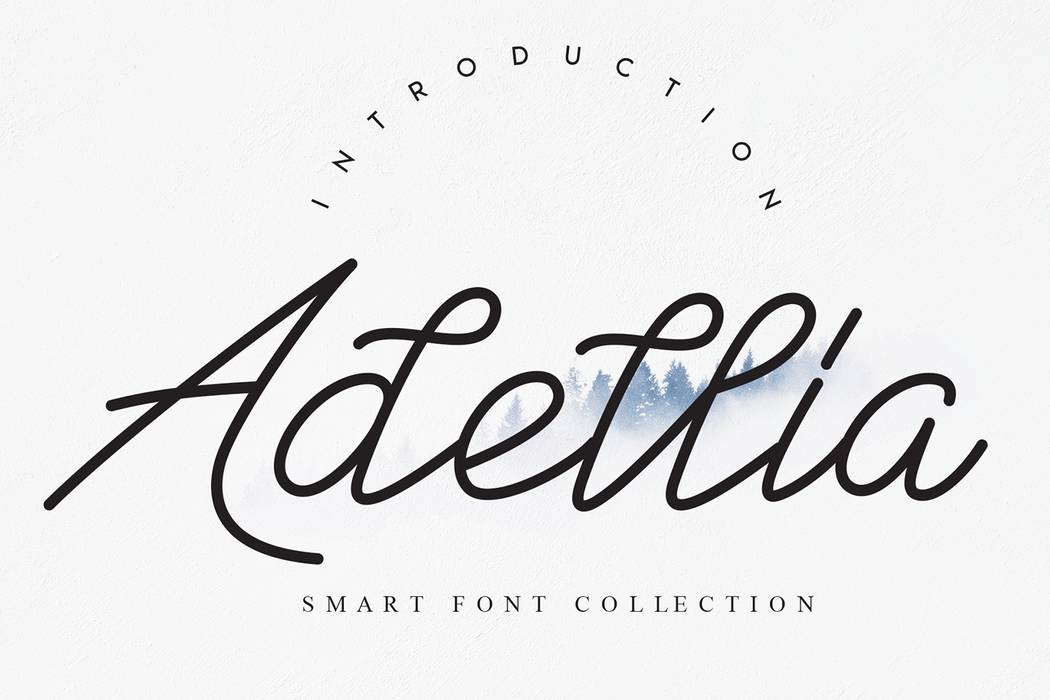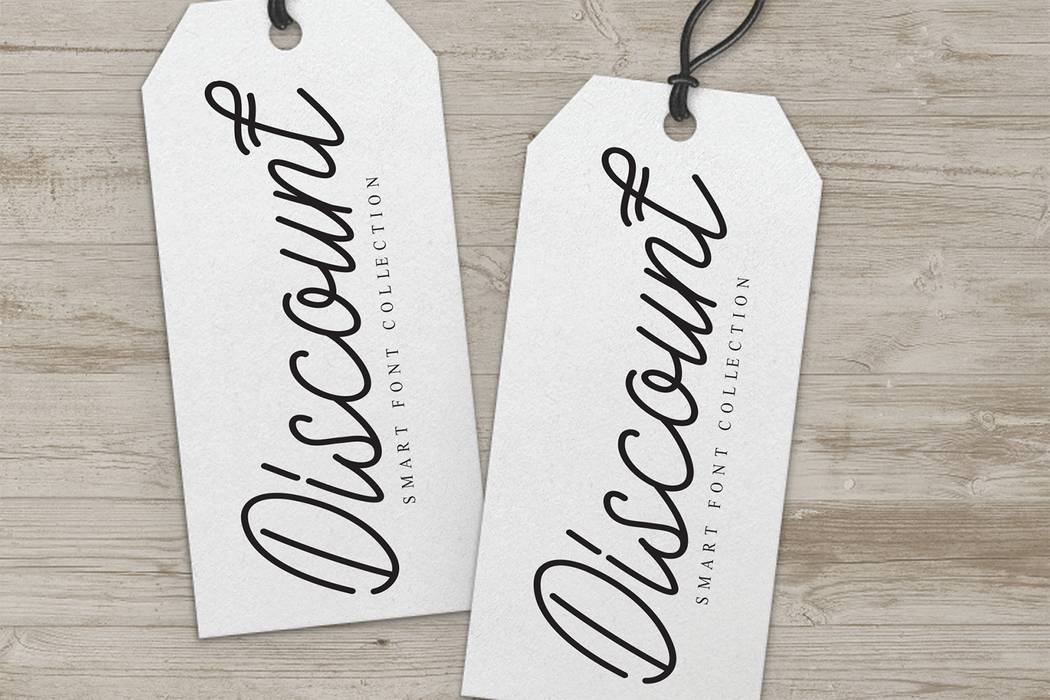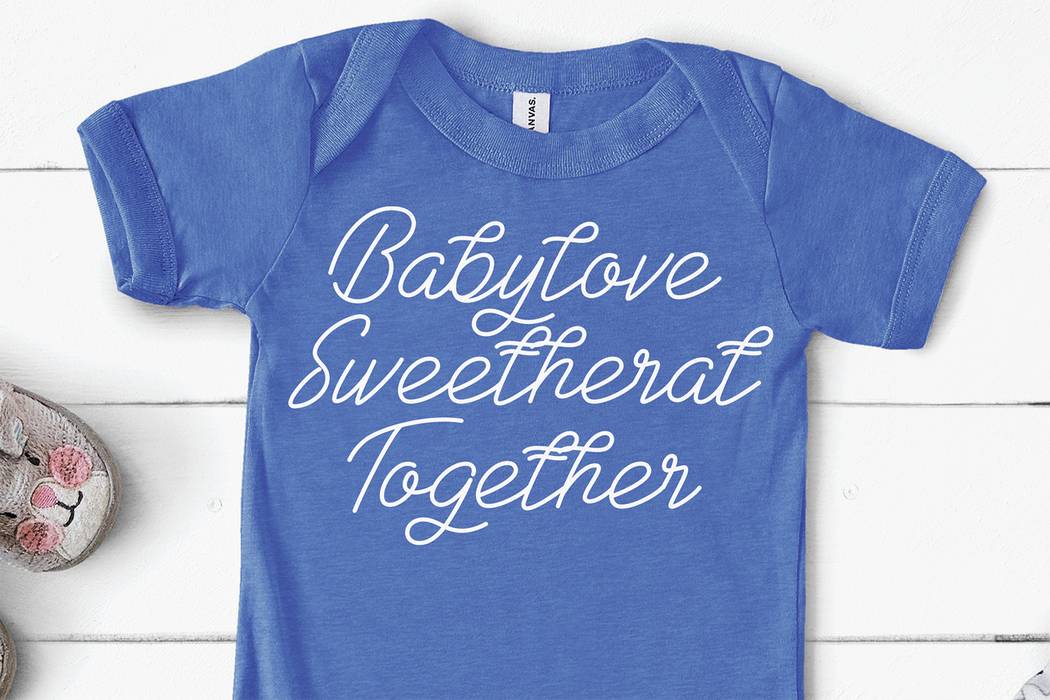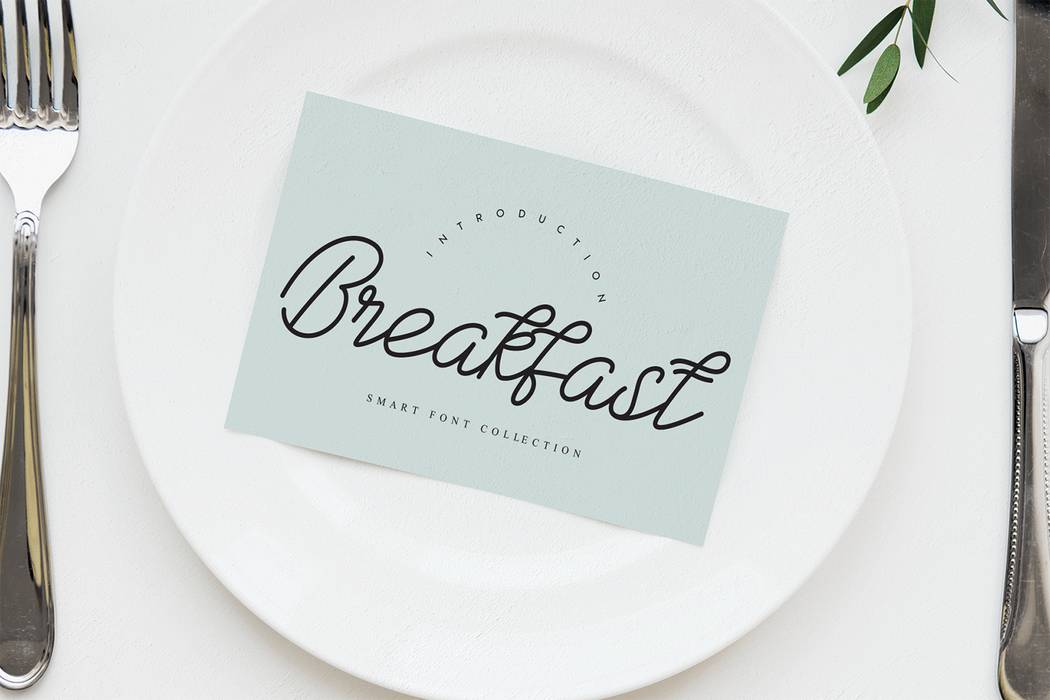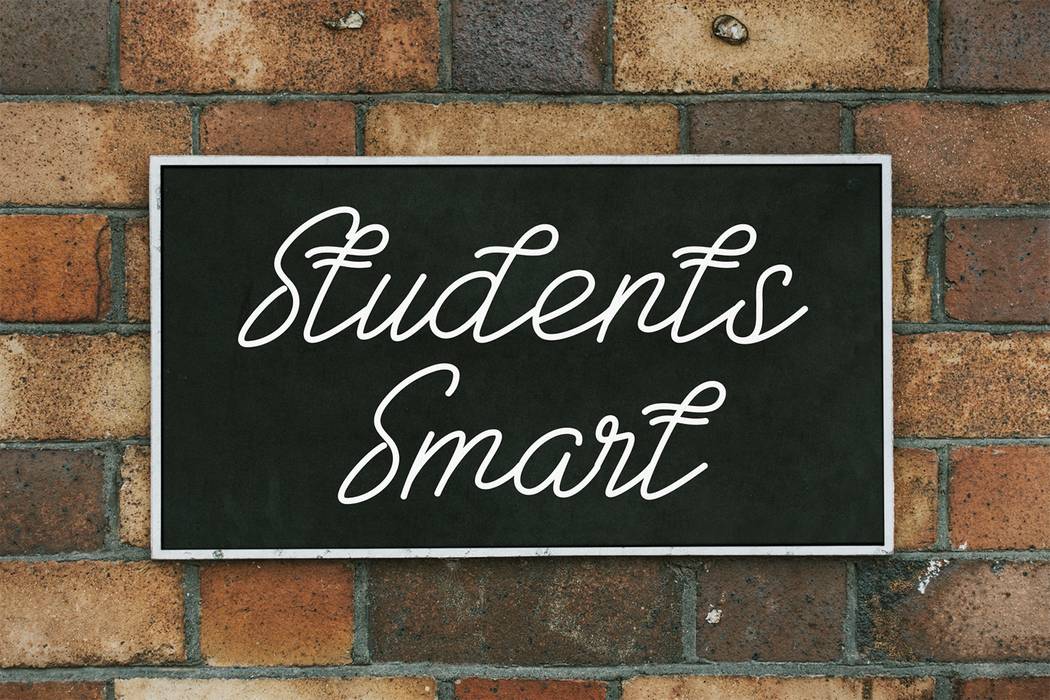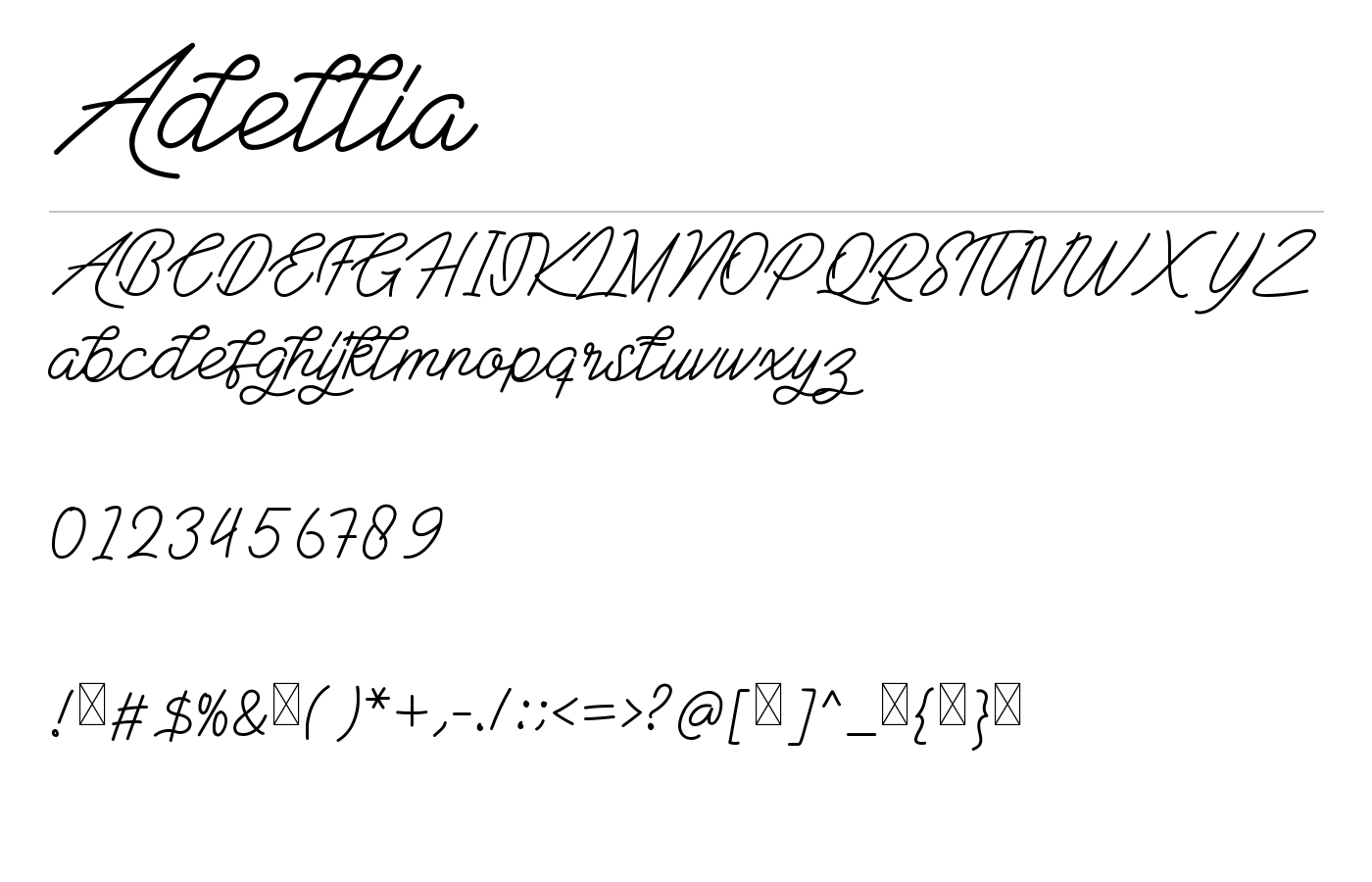
Adellia is a delicate and elegant script font featuring slender, flowing letterforms that mimic natural handwriting with a refined, graceful touch. Its light weight and smooth connection between letters make it perfect for invitations, branding, and any design that seeks a sophisticated yet approachable feel. This font works well in projects that require a personal, stylish flair, such as fashion, beauty, or luxury product packaging.
Adellia Font
About Adellia Font